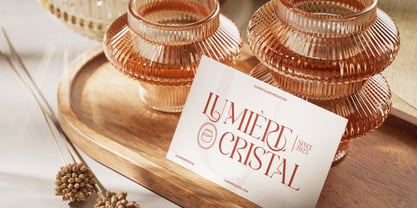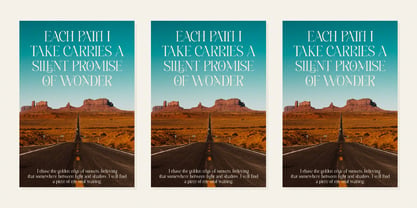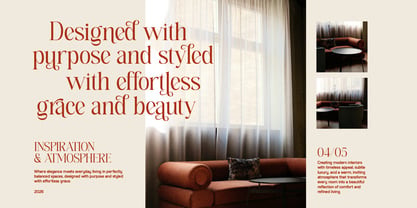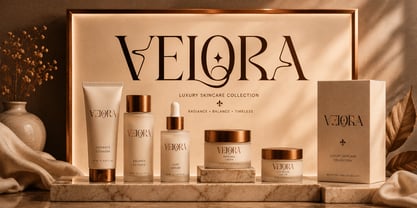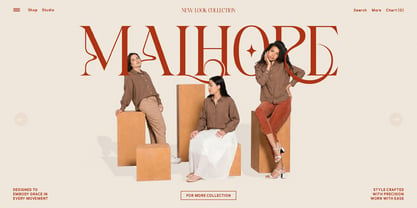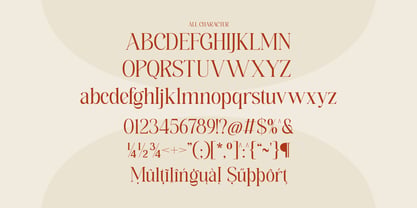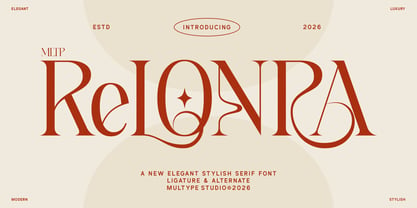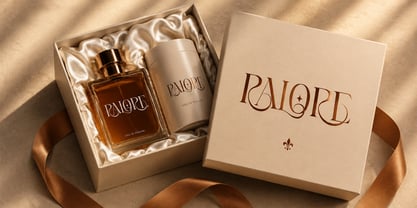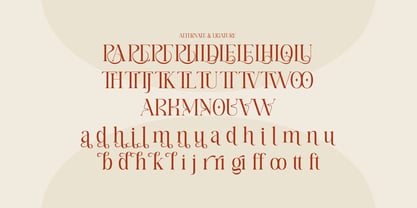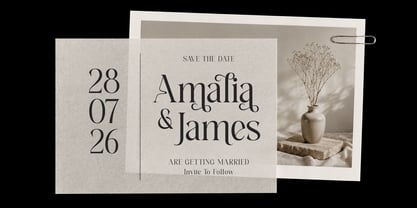
MLTP Relonra
by Multype Studio
The MLTP Relonra Font Family was designed by Mulia Yanto and published by Multype Studio. MLTP Relonra contains 1 styles. More about this family
MLTP Relonra is an elegant modern serif typeface designed to bring luxury, sophistication, and timeless beauty to your creative projects. Featuring high-contrast letterforms, refined curves, stylish alternates, and beautifully crafted ligatures, MLTP Relonra delivers a premium editorial aesthetic that stands out in both print and digital applications.
Perfect for luxury branding, fashion editorials, beauty products, wedding invitations, logo design, magazine headlines, social media content, and high-end packaging, MLTP Relonra offers the versatility needed to create distinctive and memorable visual identities. Its carefully balanced proportions and expressive details make every word feel graceful, confident, and effortlessly sophisticated.
Complete with uppercase and lowercase characters, numerals, punctuation, multilingual support, stylistic alternates, and ligatures, MLTP Relonra is crafted for designers seeking a modern serif font with an exclusive and fashion-forward personality.
Designers: Mulia Yanto
Foundry: Multype Studio